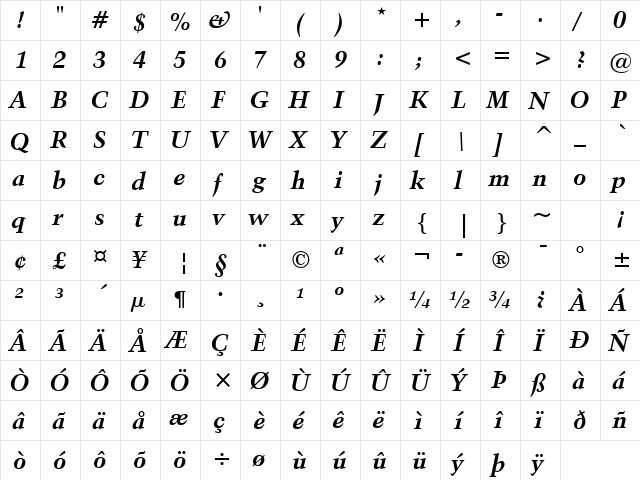
Kuenst480 BT Bold Italic
Design Context for Kuenst480 BT Typeface
Kuenst480 BT takes a measured approach to typography — its balanced proportions and neutral character make it a reliable workhorse for both digital and print work. The dynamic lean of this cut emphasises speed and emphasis in any layout. The heavy weight commands attention and anchors typographic hierarchies.